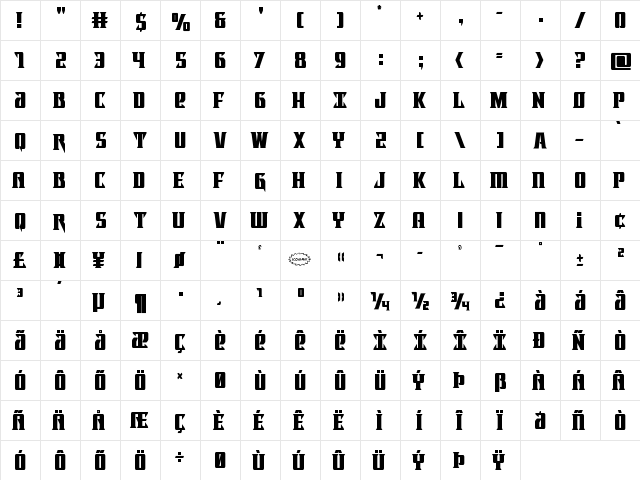
Lifeforce Condensed Condensed
Design Context for Lifeforce Condensed Typeface
Lifeforce Condensed brings high-energy athletic personality to the page — its confident, muscular forms are built for impact. Its narrow stance lets it pack a punch even in space-constrained designs.
Built for sports team identities, athletic apparel, event posters, and high-energy promotional material.
Font Pairing: Use alongside a condensed or geometric sans for supporting copy — keep the pairing bold, functional, and free of ornament.
Pro Tip: Lifeforce Condensed thrives on contrast — try it large, bold, and tight against a clean background for maximum visual impact.